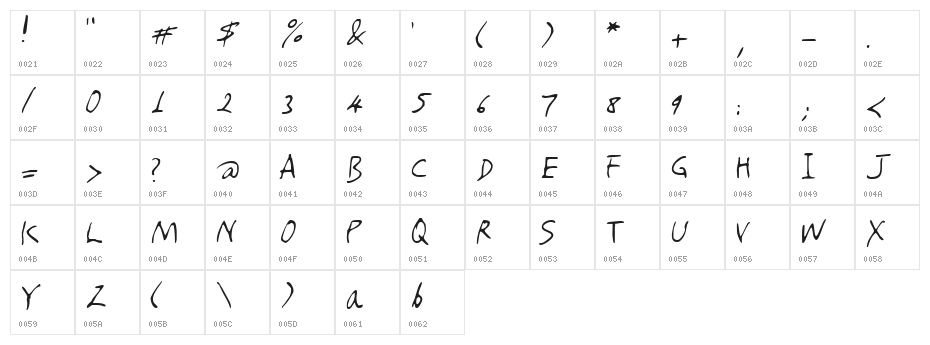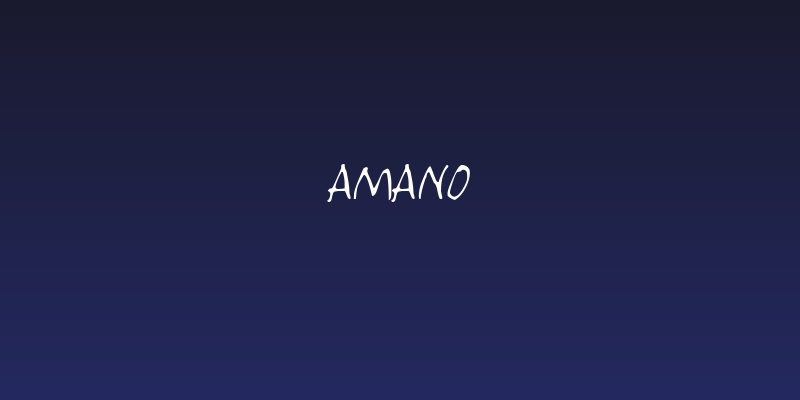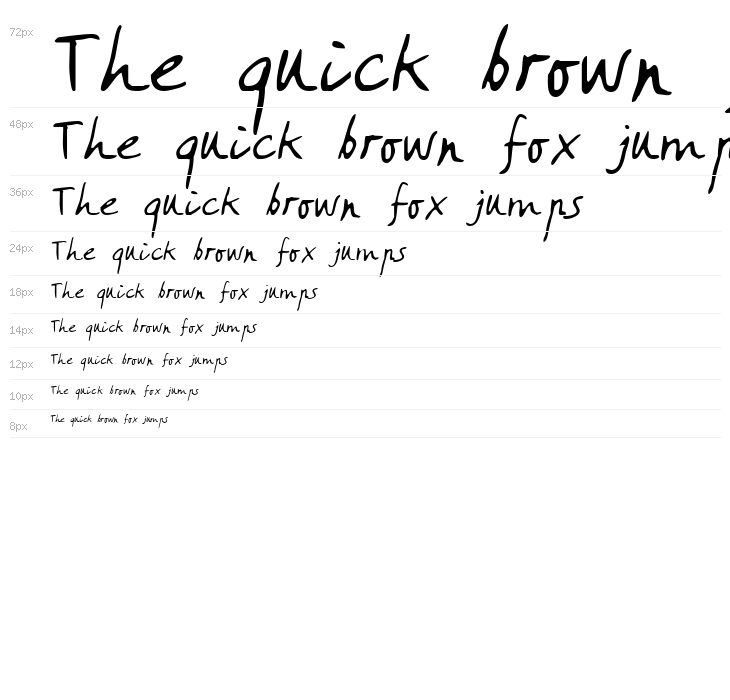
Amano Font
| Stile generale | Casual, Organic |
| Caso d'uso | Headlines, Logos, Informal Text |
| Progetti proposti | Ideal for greeting cards, personal branding, informal invitations, and creative projects that require a human touch. |